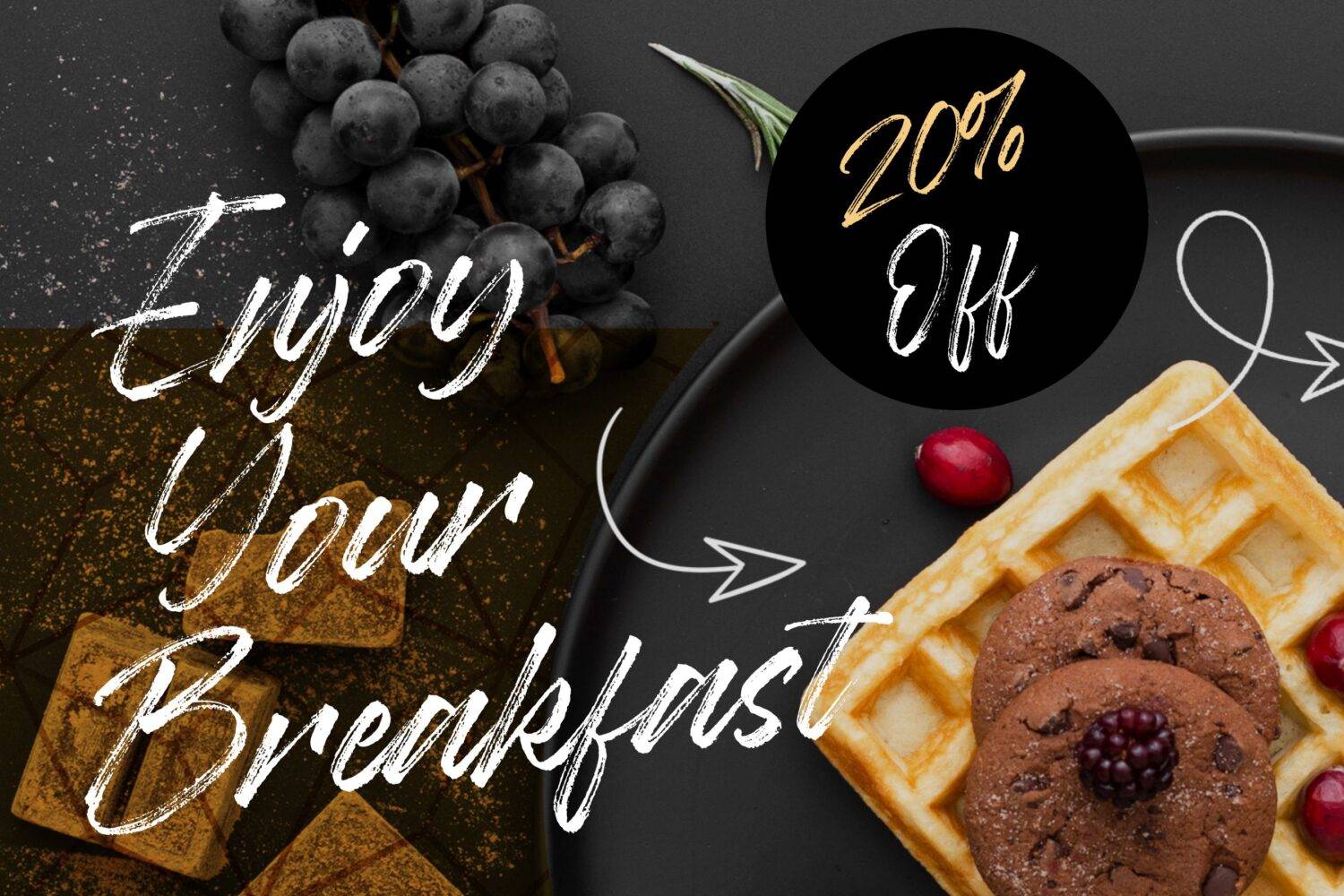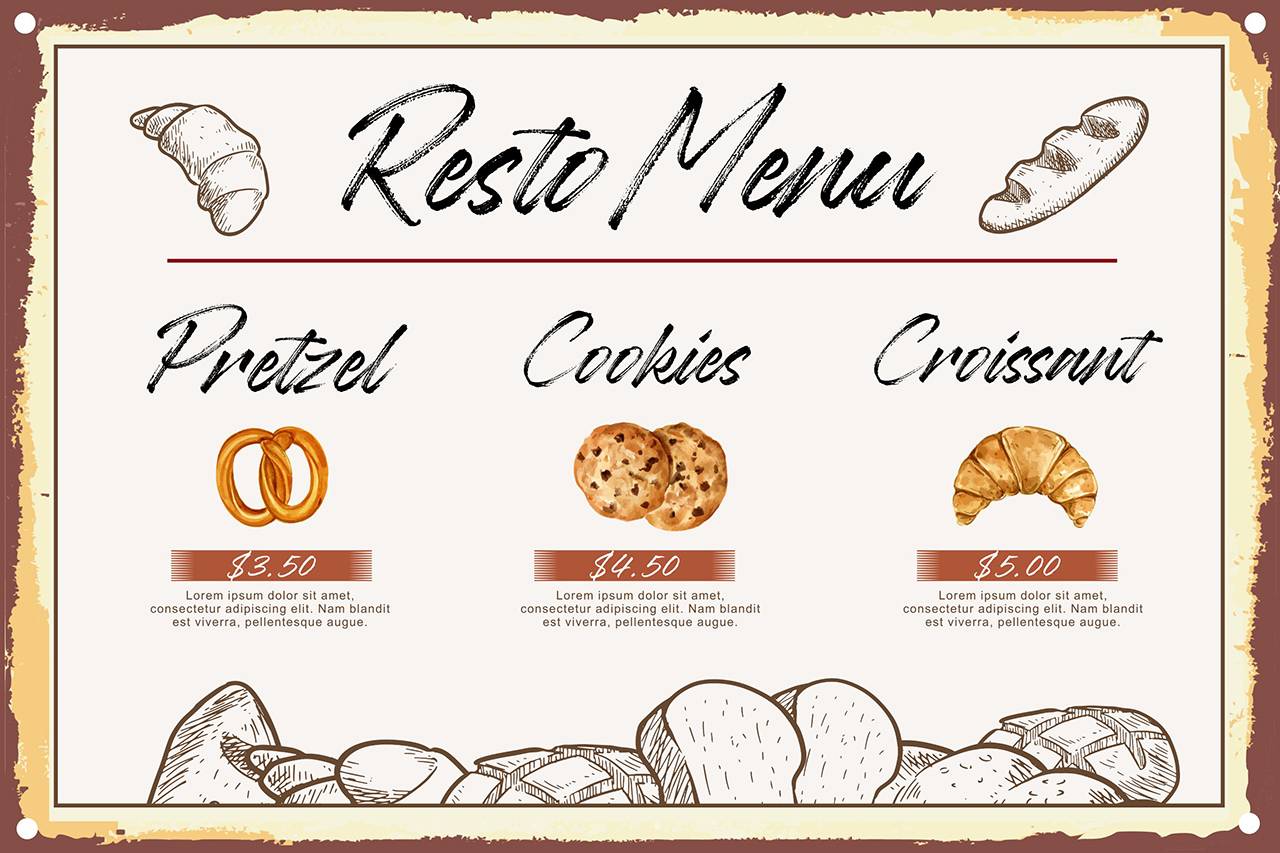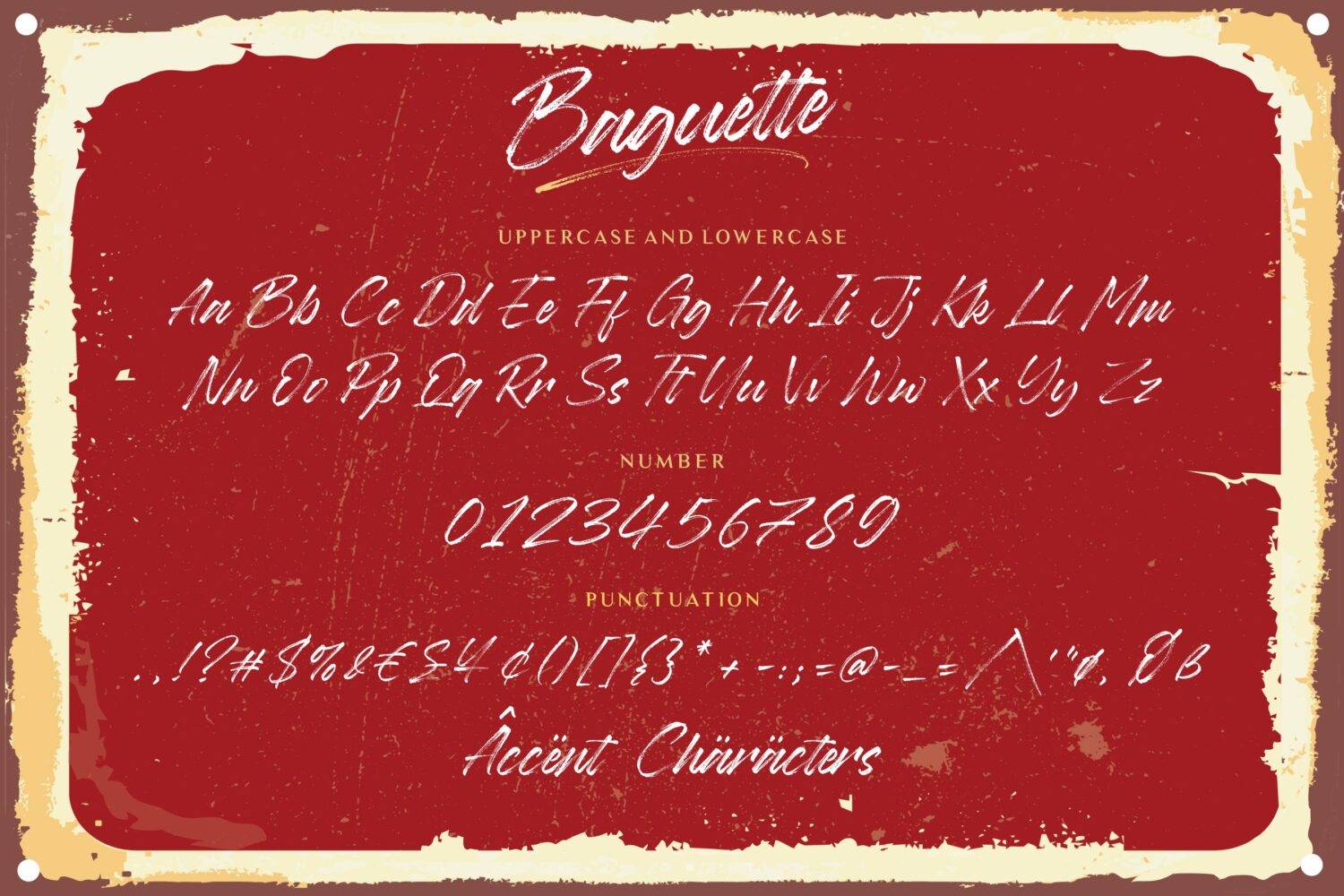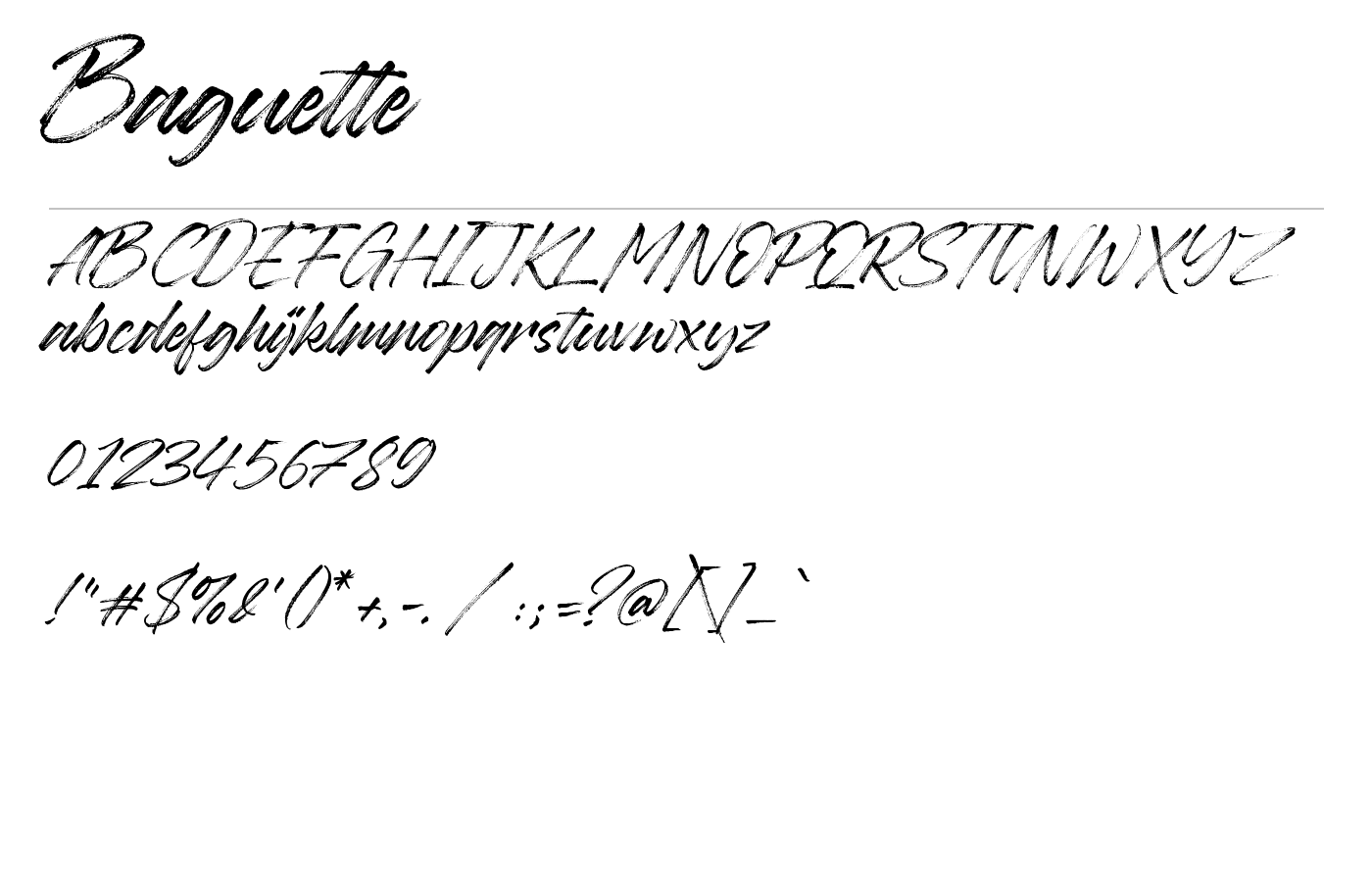
Baguette Natural Handbrushed is a lively and expressive script font that mimics authentic brush strokes with its textured, irregular lines and natural flow. It brings a casual yet artistic feel, making it perfect for creative branding, invitations, and headlines where a warm, handcrafted touch is desired. This font shines in designs that want to convey personality and a personal, approachable style.
Baguette Natural Handbrushed Font
About Baguette Natural Handbrushed Font